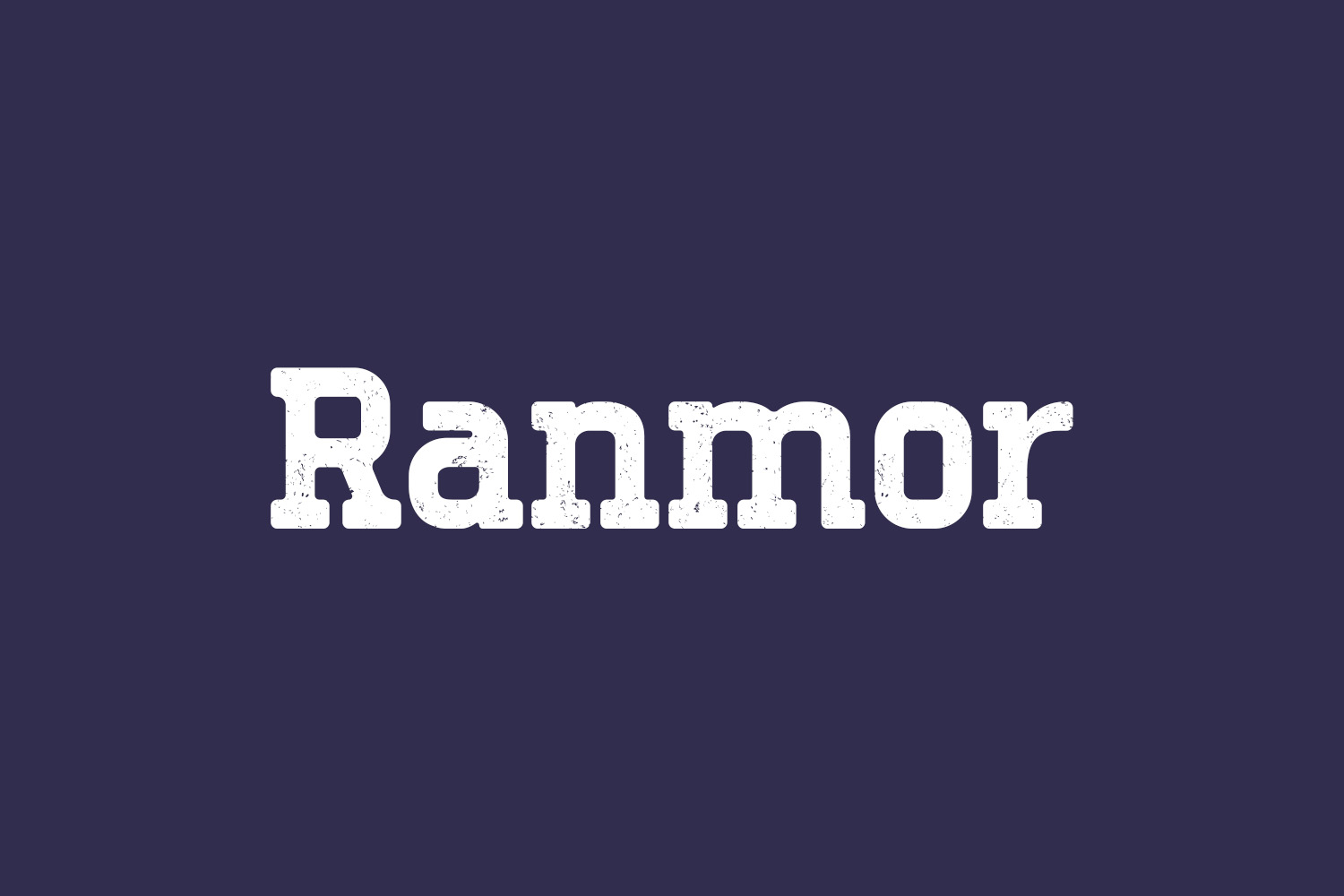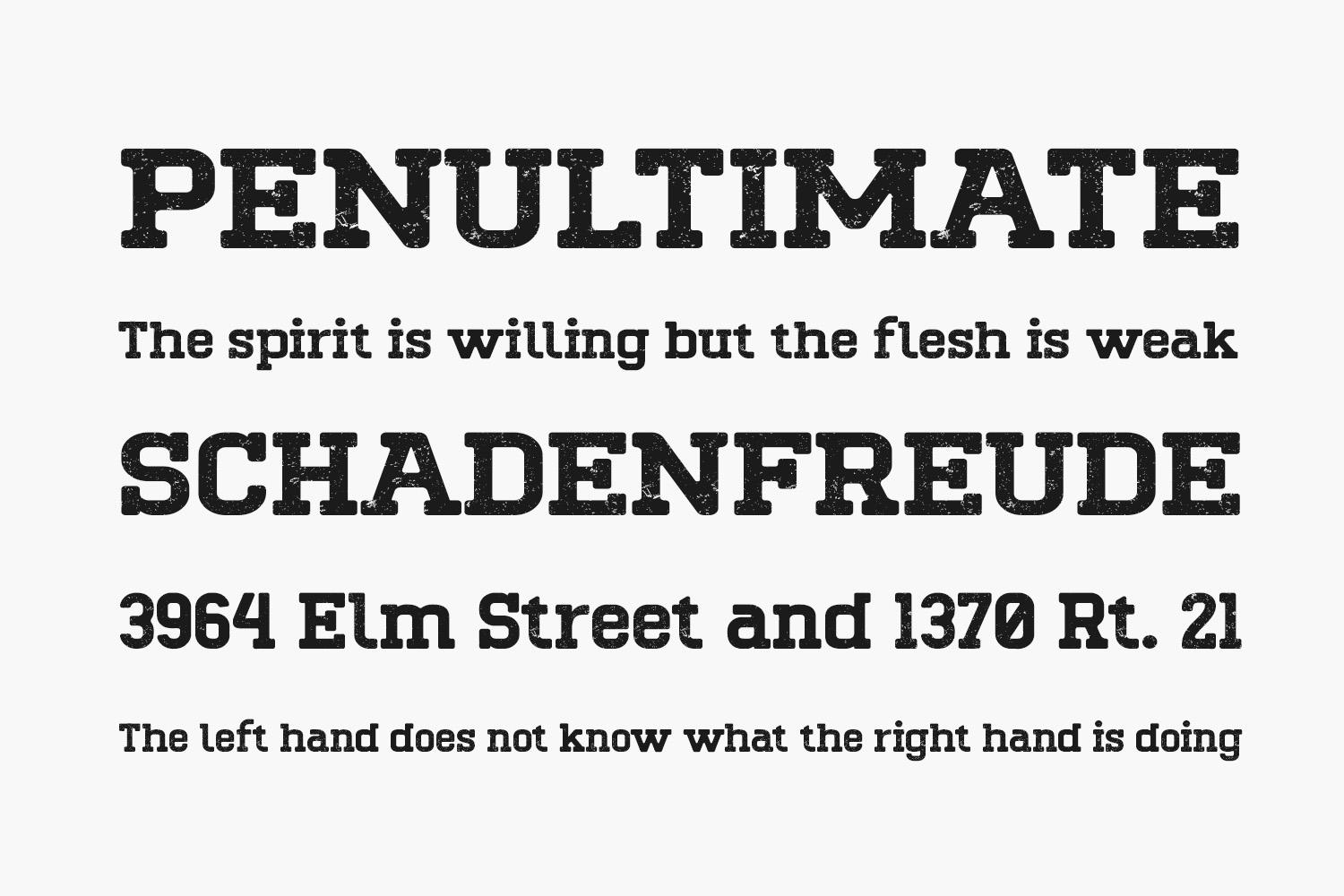
Ranmor Free Font is a bold, vintage styled and thick lettered slab serif font. Ranmor Free Font was designed by Arterfak Project and is free for personal use only. Please purchase the full version for commercial use.